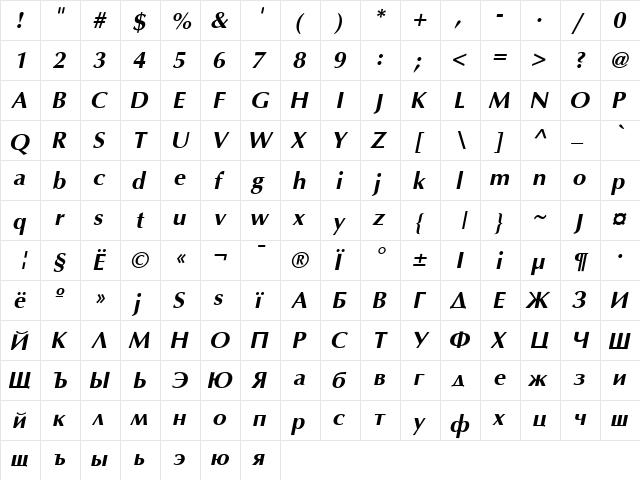
AGOptimaCyr BoldOblique Font Preview
AGOptimaCyr BoldOblique
AGOptimaCyr BoldOblique Font Details
| Style | BoldOblique |
Design Context for AGOptimaCyr Typeface
AGOptimaCyr offers clean, dependable letterforms without strong stylistic allegiance, making it a practical choice for designers who need flexibility. The dynamic lean of this cut emphasises speed and emphasis in any layout. Its bold stroke weight gives it real presence on the page.
Pro Tip: Try AGOptimaCyr for annotation and caption copy alongside an upright companion — the contrast in angle creates a dynamic but ordered typographic system.